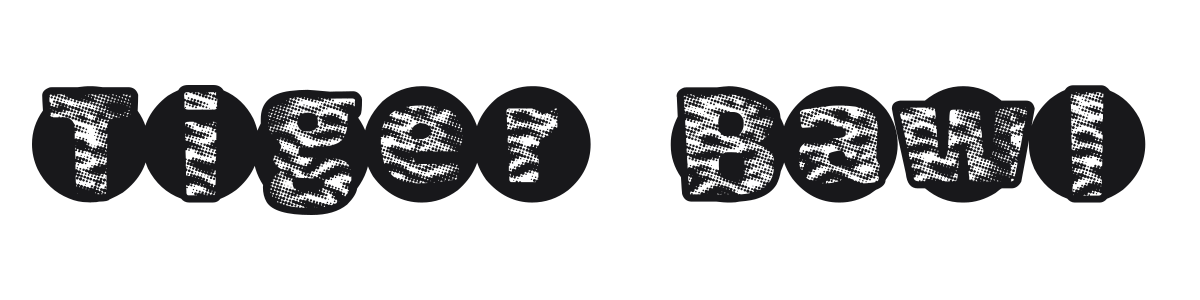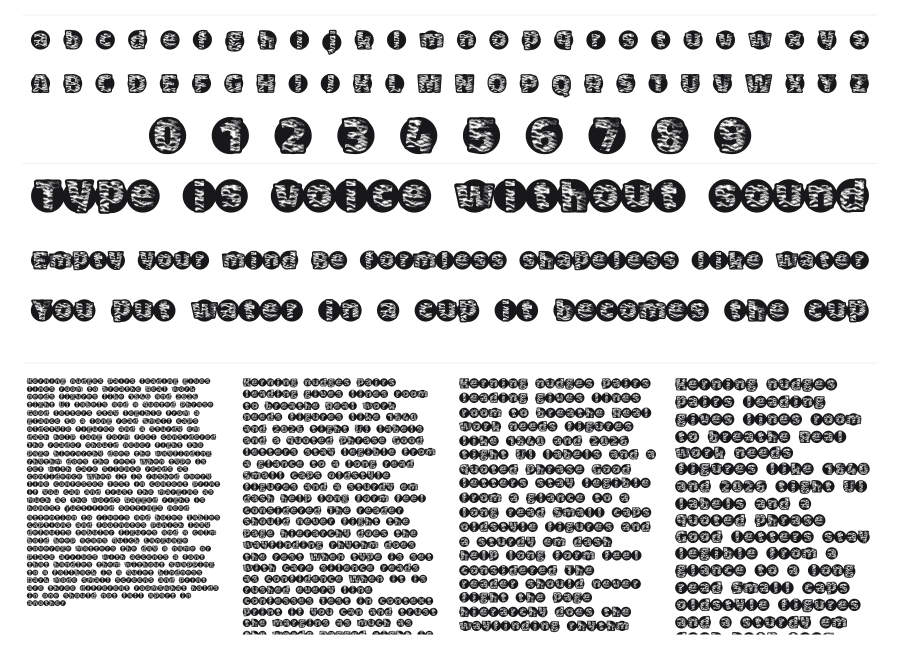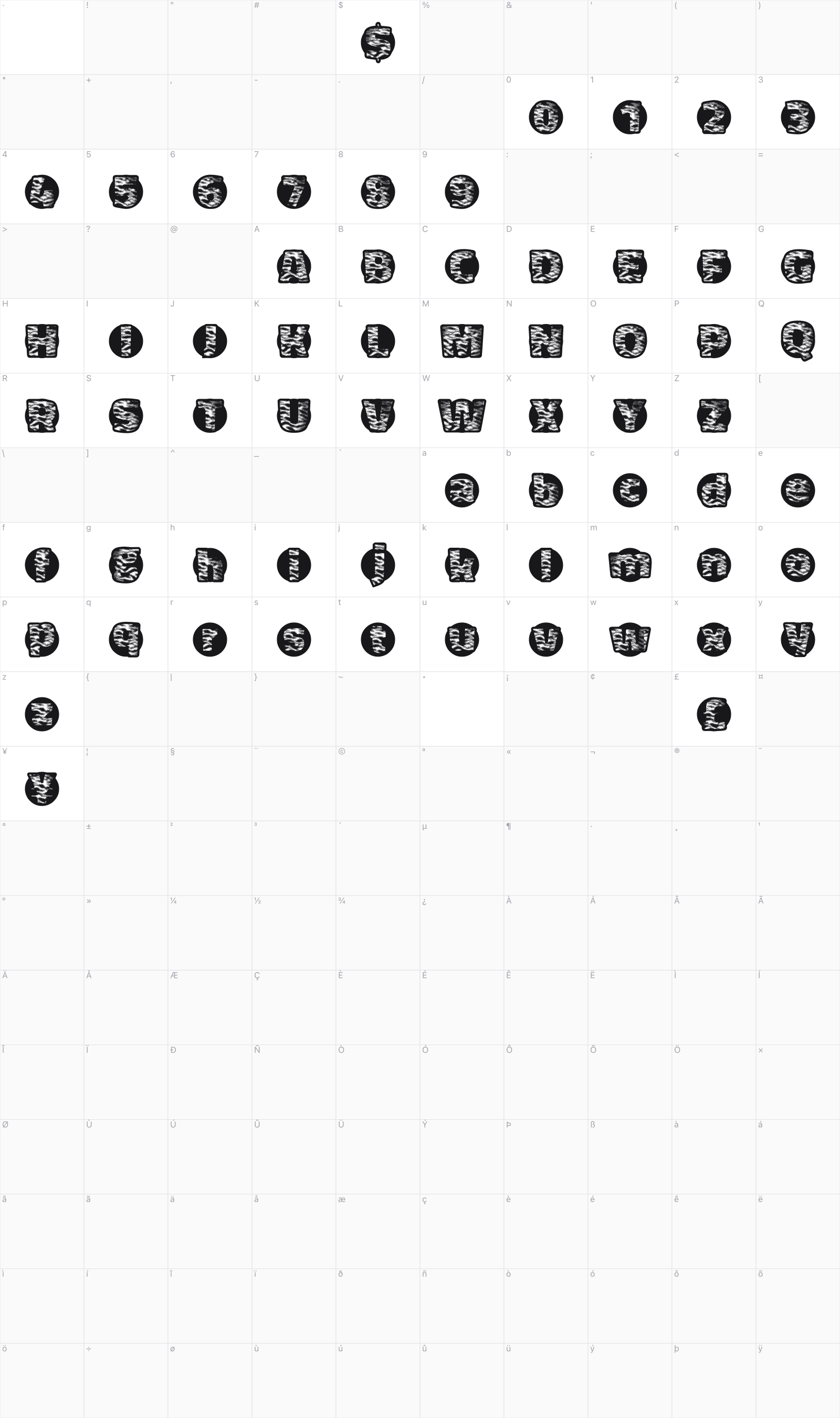
Tiger Bawl
Tiger Bawl is a heavy display font where each character is trapped inside a round, blob-like silhouette and filled with a chaotic tiger-fur texture. The combination of bubbly roundness and jagged internal patterning creates a look that is simultaneously cartoonish and fierce. It reads instantly as loud at large sizes and carries a strong street-art or heavy-music energy.